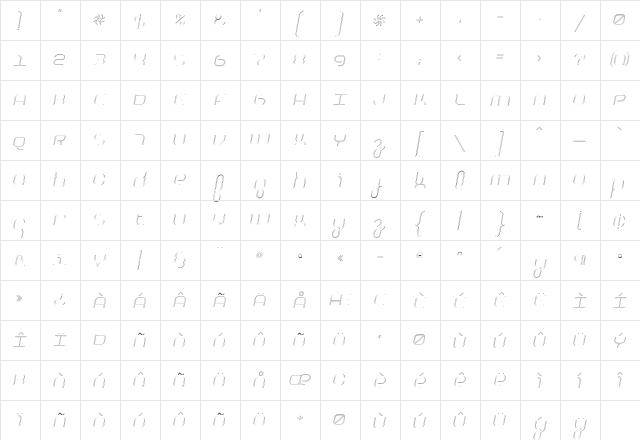
Basix Medium Italic
Design Context for Basix Typeface
Basix is a composed and adaptable typeface that performs quietly and consistently across a wide range of design contexts. Its italic angle brings a sense of urgency and motion to the letterforms.